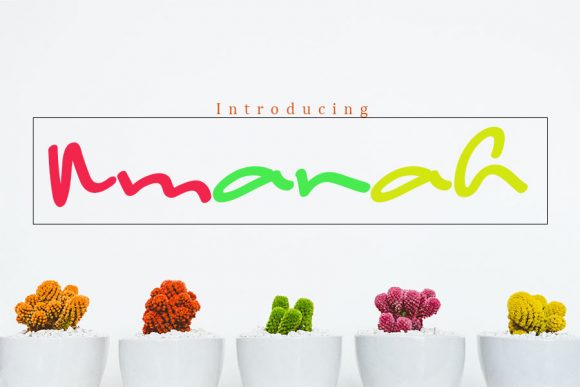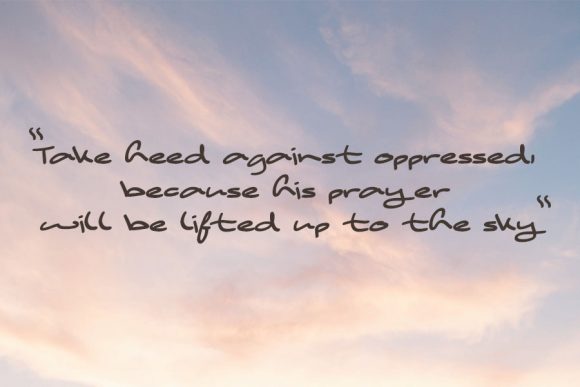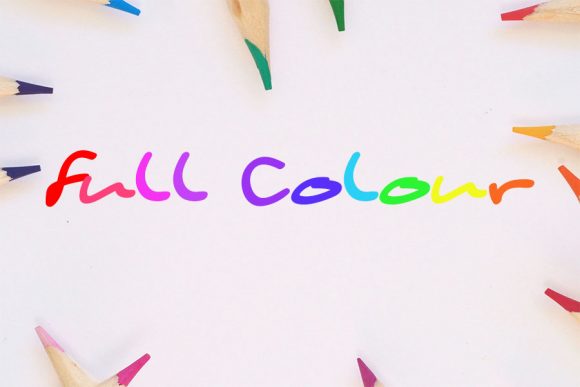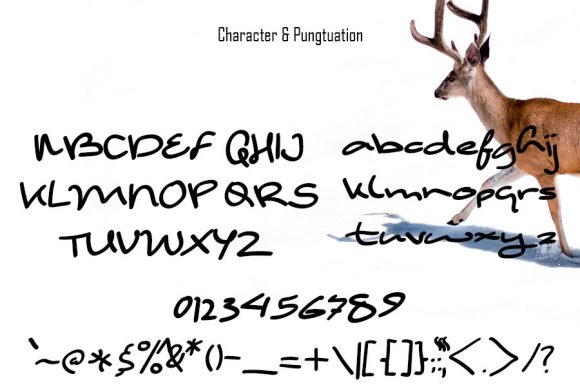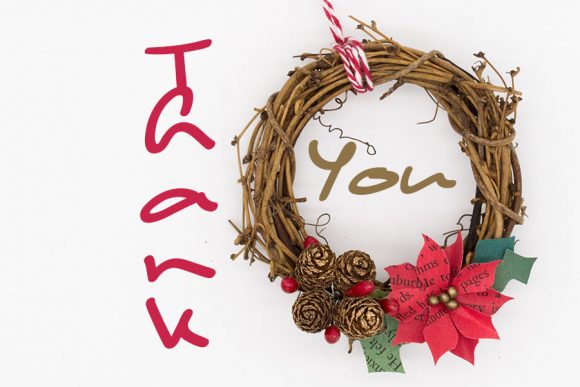
Amanah Font
About Amanah Font
Amanah is a simple, cool and cursive script font. It fits various informal or casual designs, so add it confidently to your ideas and notice how they come alive.